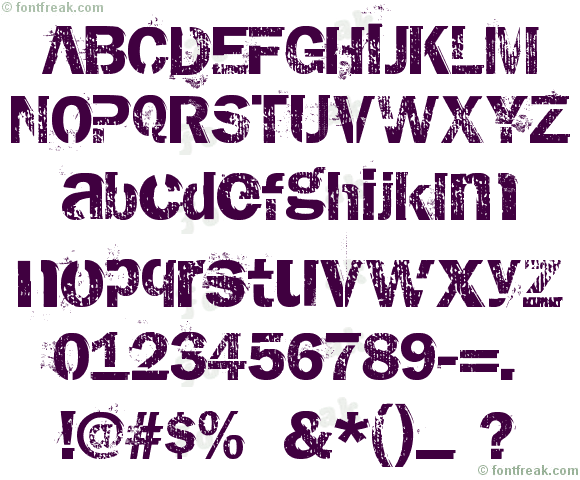
AnthologY
The AnthologY font by Gyom Seguin is a striking display typeface that captures attention with its unique aesthetic. This font, released in 2006, blends a modern sensibility with a touch of vintage charm, making it an excellent choice for a variety of creative projects. As a display font, AnthologY stands out with its bold, textured strokes and an interesting mix of geometric and organic shapes. The uneven stroke weight adds a dynamic quality, while the slightly distressed finish gives it an artistic flair, perfect for designs that aim for a handmade feel.
Ideal use cases for the AnthologY font include wedding invitations, where its distinctive character can add a personal touch, and movie posters, where it can convey a sense of drama and intrigue. Additionally, it works wonderfully for restaurant menus, particularly for establishments with a focus on artisanal or locally sourced cuisine. Graphic designers will find this font versatile enough for branding projects, including logos and promotional materials, while content creators can utilize it for eye-catching social media graphics.
What sets the AnthologY font apart is its ability to blend artistic expression with practicality. Its unique design captures attention and evokes emotion, making it a valuable asset for those looking to infuse their work with personality. For anyone seeking a distinctive typeface, the AnthologY font free download offers an opportunity to incorporate this exceptional style into their creative toolkit.